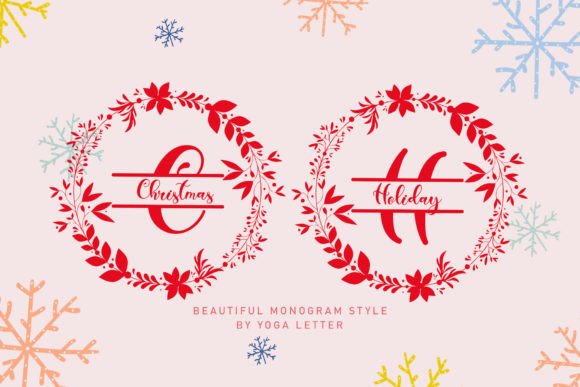
Christmas Holiday Monogram Font: A Beautiful and Natural Monogram Font for Festive Occasions
The Christmas holiday season is upon us, and with it comes the joy of sending out festive invitations, decorations, and gifts. One of the most important aspects of creating a memorable and cohesive look for your holiday celebrations is choosing the right font. If you’re looking for a beautiful and natural monogram font that’s perfect for Christmas, Valentine’s Day, winter weddings, and other special occasions, look no further than the Christmas Holiday Monogram Font.
What is Christmas Holiday Monogram Font?
Christmas Holiday Monogram Font is a stunning and elegant monogram font that’s designed to add a touch of festive flair to your holiday projects. This font features a beautiful floral decorative monogram that’s perfect for creating eye-catching invitations, decorations, and gifts. With its natural and effortless design, this font is sure to impress your friends and family.
Key Features of Christmas Holiday Monogram Font
- Floral Decorative Monogram: The font features a beautiful floral decorative monogram that’s perfect for creating festive and elegant designs.
- Uppercase and Lowercase Letters: The font includes both uppercase and lowercase letters, making it easy to create professional-looking designs.
- Numerals and Punctuations: The font also includes numerals and punctuations, giving you everything you need to create complete and cohesive designs.
- Monograms: The font features a range of monograms that are perfect for creating custom and personalized designs.
- Multilingual Support: The font includes multilingual support, making it easy to create designs in multiple languages.
Uses of Christmas Holiday Monogram Font
Christmas Holiday Monogram Font is a versatile font that can be used for a wide range of festive and special occasions, including:
- Christmas Invitations: Create beautiful and festive Christmas invitations that set the tone for your holiday celebrations.
- Valentine’s Day Cards: Use the font to create romantic and elegant Valentine’s Day cards for your loved ones.
- Winter Weddings: The font is perfect for winter weddings, adding a touch of elegance and sophistication to your wedding invitations and decorations.
- Wedding Invitations: Use the font to create beautiful and custom wedding invitations that reflect your personal style.
- Engagement Parties: Create elegant and festive engagement party invitations that set the tone for the celebration.
Benefits of Using Christmas Holiday Monogram Font
There are many benefits to using Christmas Holiday Monogram Font for your festive and special occasion designs, including:
- Elegant and Sophisticated: The font adds a touch of elegance and sophistication to your designs, making them perfect for special occasions.
- Customizable: The font is highly customizable, allowing you to create unique and personalized designs that reflect your style.
- Easy to Use: The font is easy to use and comes with a range of features that make it simple to create professional-looking designs.
- Multilingual Support: The font includes multilingual support, making it easy to create designs in multiple languages.
Tips for Using Christmas Holiday Monogram Font
Here are some tips for using Christmas Holiday Monogram Font to create stunning and festive designs:
- Experiment with Different Sizes: Experiment with different font sizes to create visual interest and hierarchy in your designs.
- Combine with Other Fonts: Combine the font with other fonts to create a unique and cohesive look.
- Use Colors Wisely: Use colors wisely to create a festive and cohesive look that reflects your brand or personal style.
- Don’t Overdo It: Don’t overdo it with too many design elements – sometimes less is more.
Christmas Holiday Monogram Font is a beautiful and natural monogram font that’s perfect for festive and special occasions. With its elegant and sophisticated design, this font is sure to impress your friends and family. Whether you’re creating Christmas invitations, Valentine’s Day cards, or wedding invitations, this font is a versatile and easy-to-use solution that’s sure to deliver.